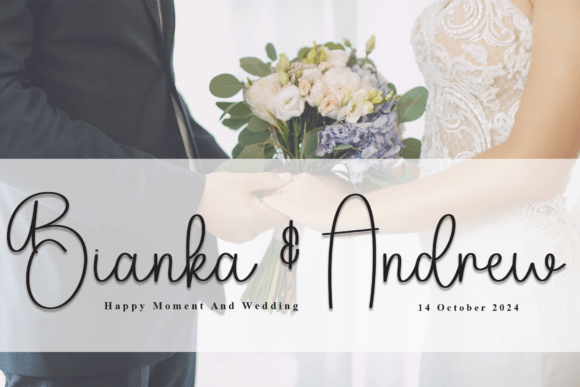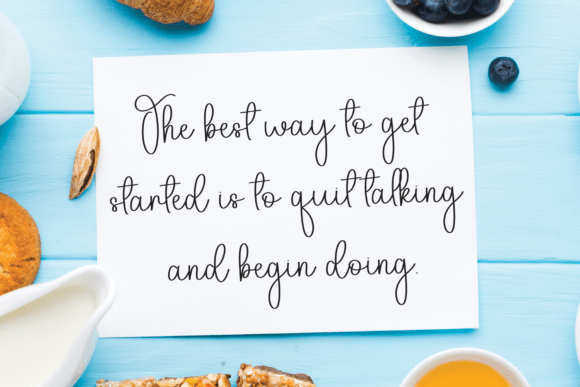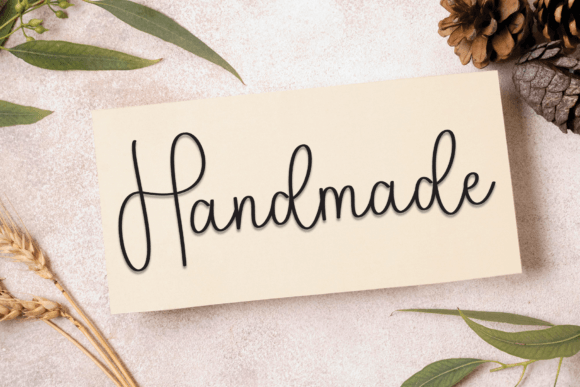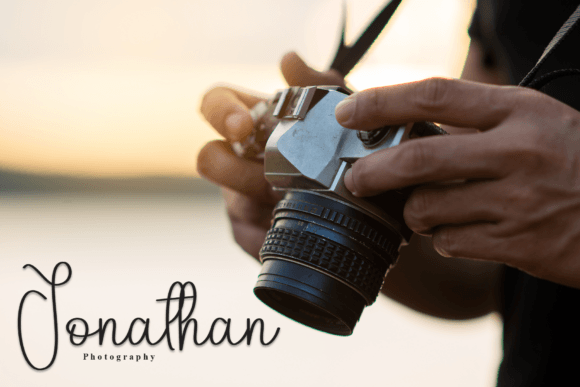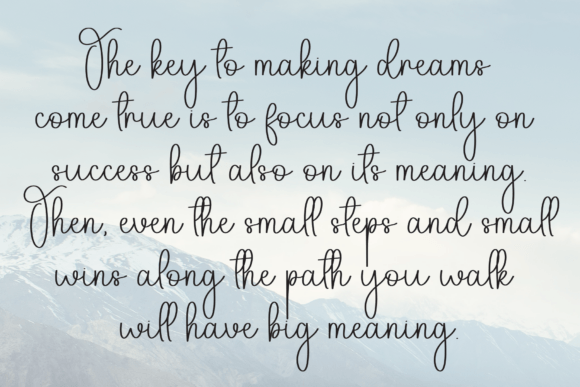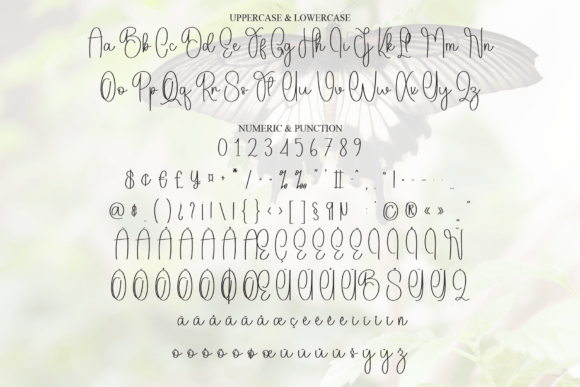
Introducing the Butterfly Font: A Charming Handwritten Display Font
Are you looking for a font that can add a touch of whimsy and playfulness to your designs? Look no further than the Butterfly Font, a charming handwritten display font that is sure to delight. With its sweet and friendly appeal, this font is perfect for crafters and designers who want to add a dash of joy to their creations.
The Delightful Nature of the Butterfly Font
The Butterfly Font is a delightful font that is sure to bring a smile to your face. Its cute and expressive style makes it perfect for crafting whimsical wedding invitations, heartfelt cards, and any design that seeks a touch of joy. Whether you’re a designer, crafter, or DIY enthusiast, this font is sure to elevate your design game with its unique and mood-lifting characteristics.
Perfect for Whimsical Designs
The Butterfly Font is perfect for designers and crafters who want to create whimsical and playful designs. Its handwritten style gives it a personal and friendly touch, making it ideal for projects that require a touch of warmth and personality. From wedding invitations to greeting cards, this font is sure to add a touch of magic to your creations.
Key Features of the Butterfly Font
- Handwritten style: The Butterfly Font has a beautiful handwritten style that gives it a personal and friendly touch.
- Cute and expressive: This font is incredibly cute and expressive, making it perfect for designs that require a touch of whimsy and playfulness.
- Sweet and friendly appeal: The Butterfly Font has a sweet and friendly appeal that is sure to delight.
- Unique and mood-lifting characteristics: This font has a unique and mood-lifting quality that is sure to elevate your design game.
How to Use the Butterfly Font
The Butterfly Font is incredibly versatile and can be used for a wide range of design projects. Here are a few ideas to get you started:
- Wedding invitations: Use the Butterfly Font to create whimsical and romantic wedding invitations that will set the tone for a magical day.
- Greeting cards: This font is perfect for creating heartfelt greeting cards that will make your loved ones feel special.
- Social media graphics: Use the Butterfly Font to create fun and playful social media graphics that will add a touch of personality to your online presence.
- Branding and packaging: This font can also be used for branding and packaging projects that require a touch of whimsy and playfulness.
Tips for Pairing the Butterfly Font
The Butterfly Font can be paired with a wide range of fonts to create unique and interesting combinations. Here are a few tips to keep in mind:
- Pair with a sans-serif font: Pairing the Butterfly Font with a sans-serif font can create a nice contrast and add visual interest to your design.
- Pair with a script font: Pairing the Butterfly Font with another script font can create a beautiful and elegant combination.
- Experiment with different font sizes: Don’t be afraid to experiment with different font sizes to create visual interest and hierarchy in your design.
The Butterfly Font is a charming handwritten display font that is sure to delight designers and crafters alike. With its sweet and friendly appeal, this font is perfect for crafting whimsical wedding invitations, heartfelt cards, and any design that seeks a touch of joy. Whether you’re a seasoned designer or a DIY enthusiast, this font is sure to elevate your design game with its unique and mood-lifting characteristics.